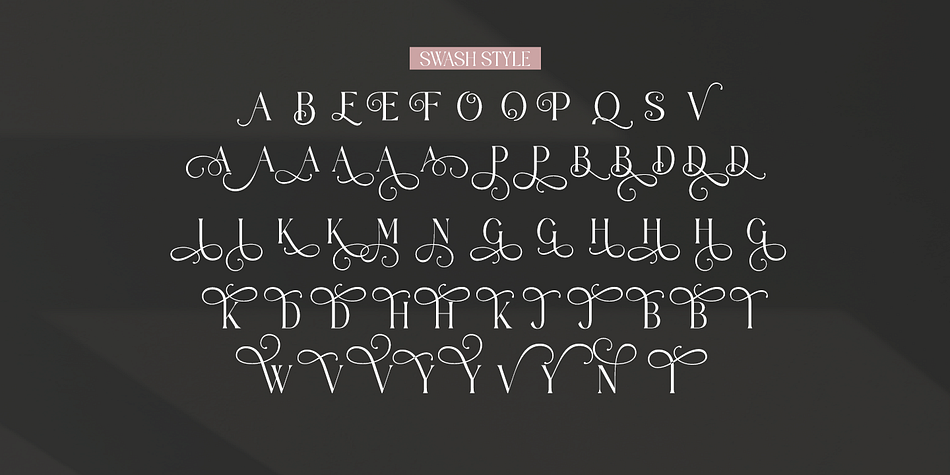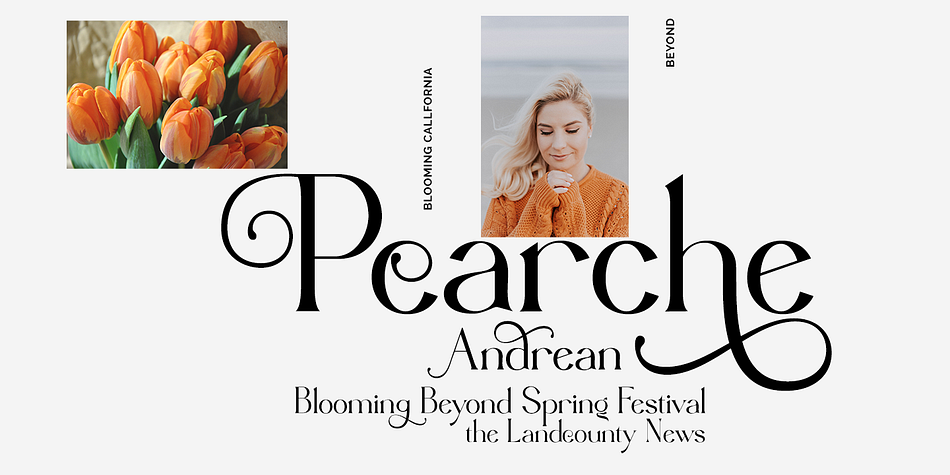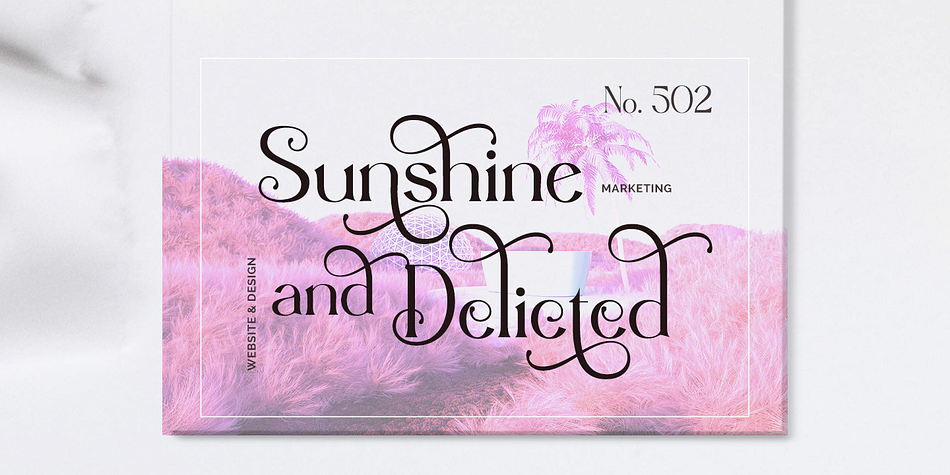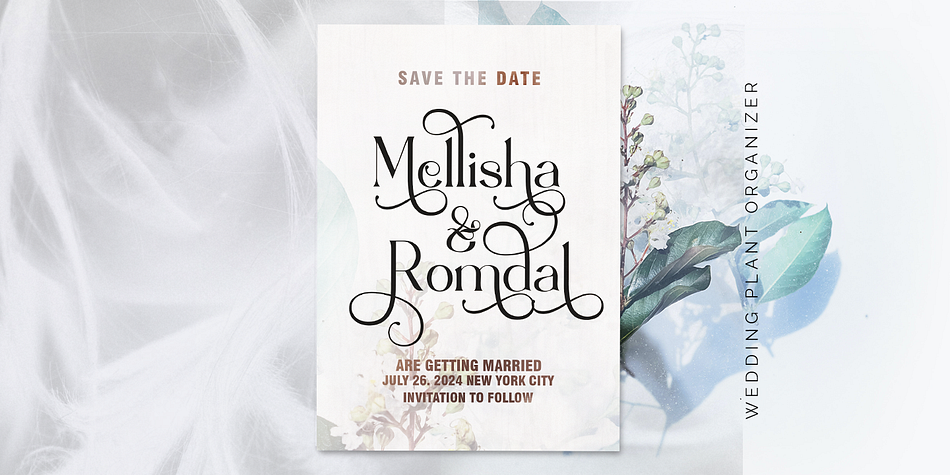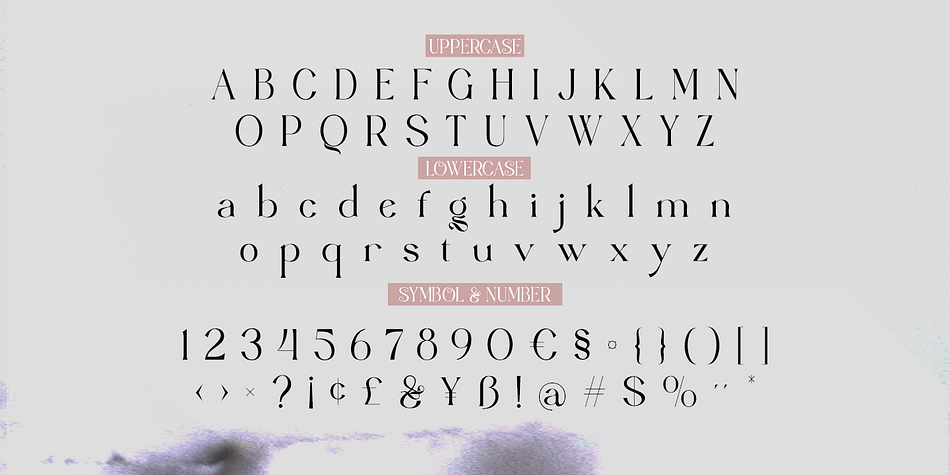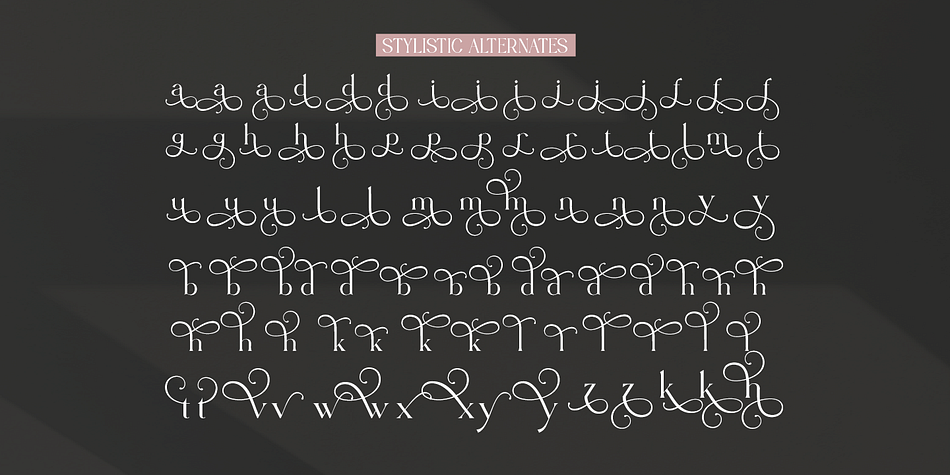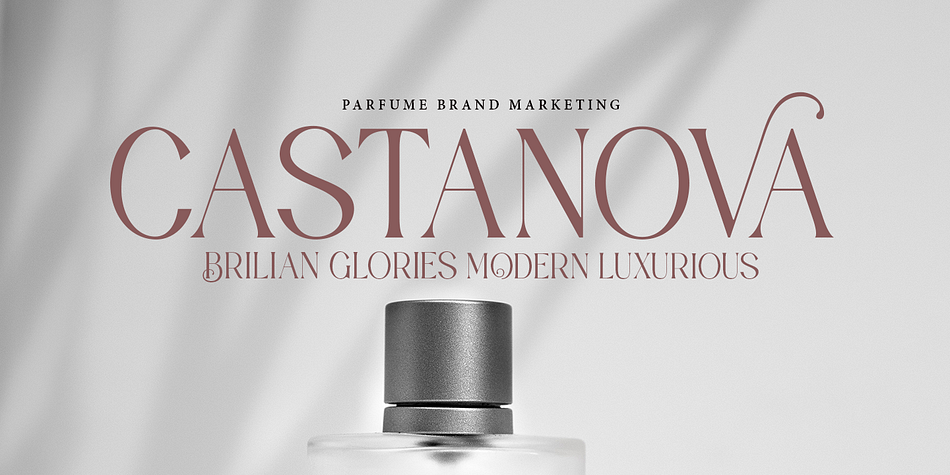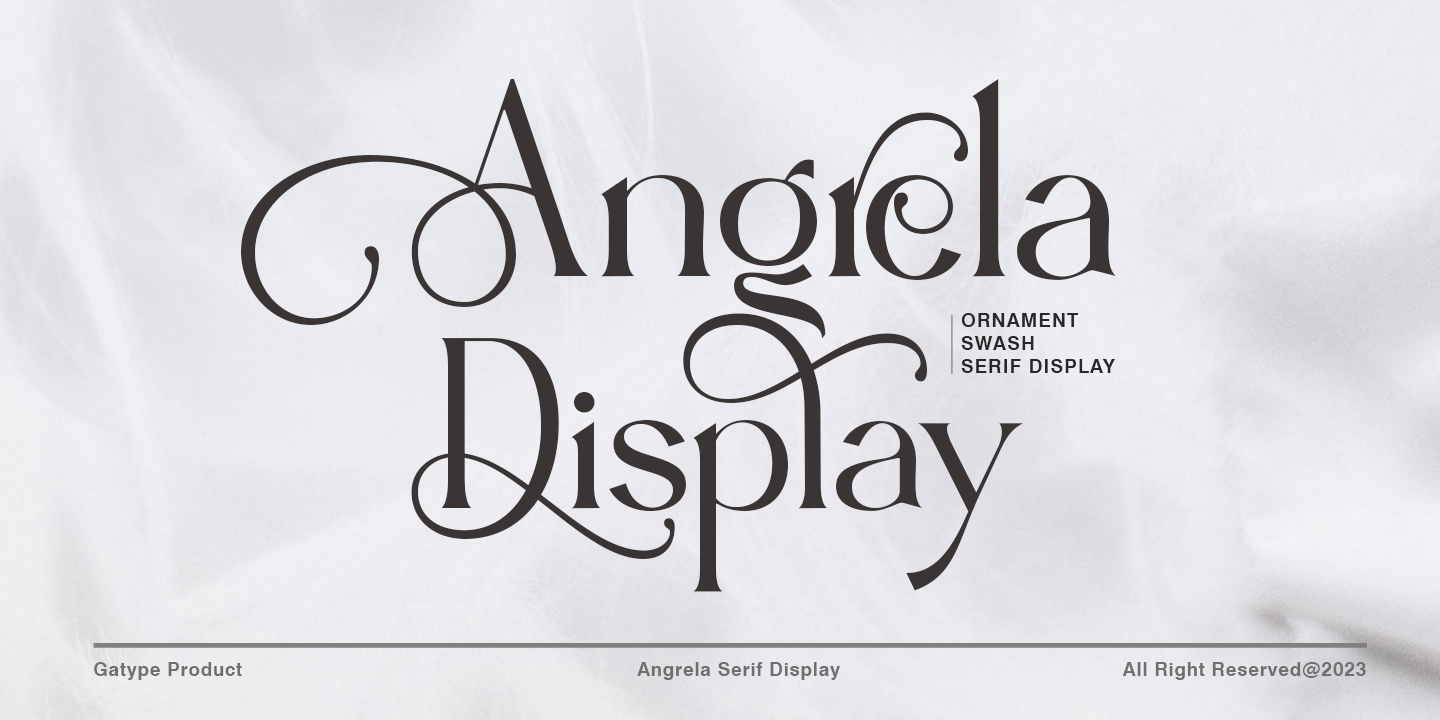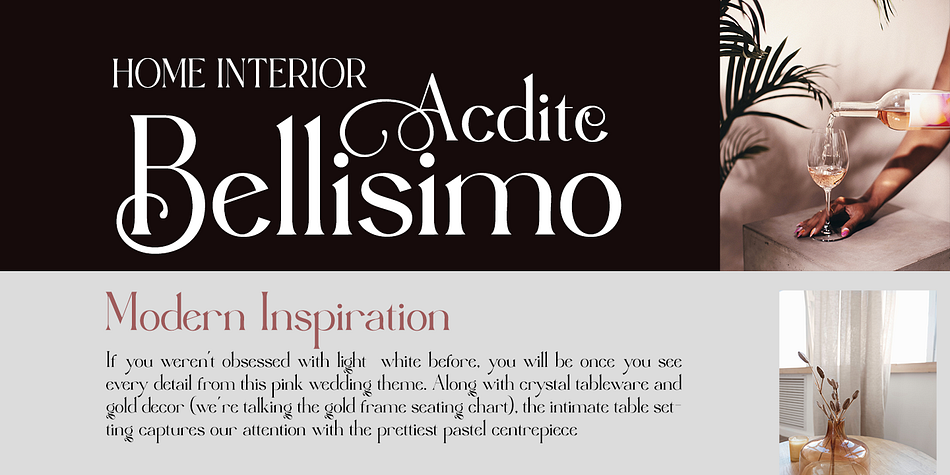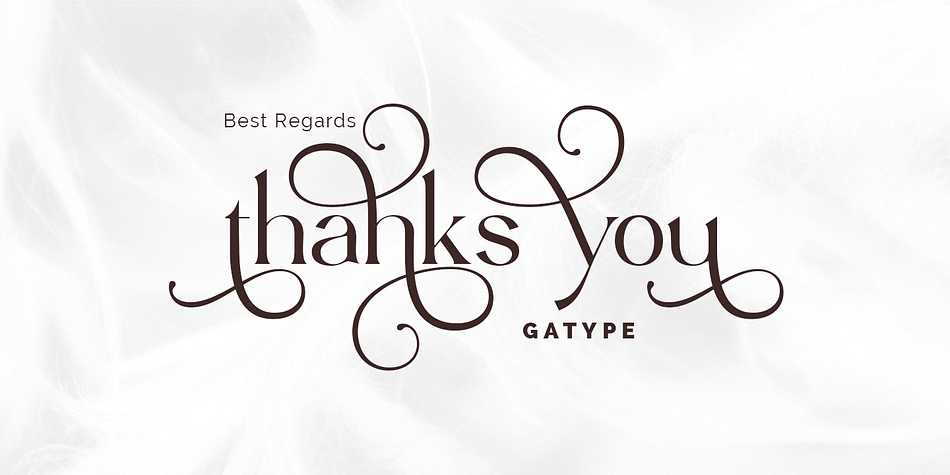
Angrela Display
Angrela Display is a display serif font family published by Gatype.
Angrela Display is an Ornament serif font with a charming, luxurious, elegant, modern, unique and classy appearance. Great for use for fancy themed projects, branding projects, Magazine, Social Media, Branding, Logos, website headers or simply as a stylish text overlay onto any background image. and Many more need a Luxury touch.